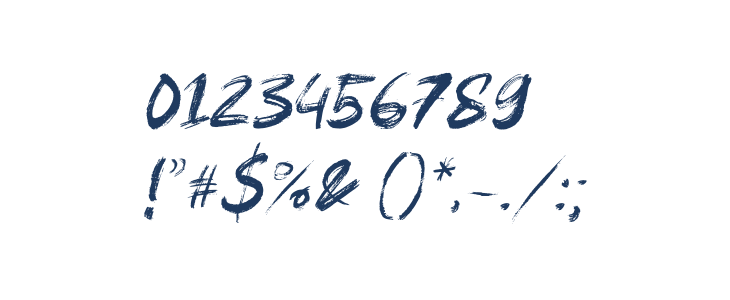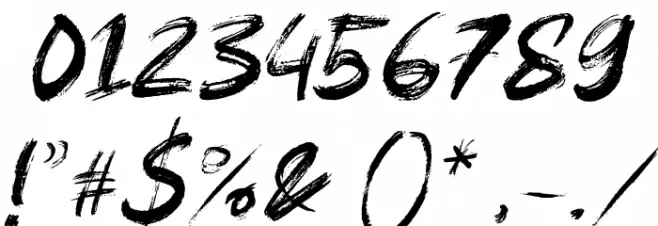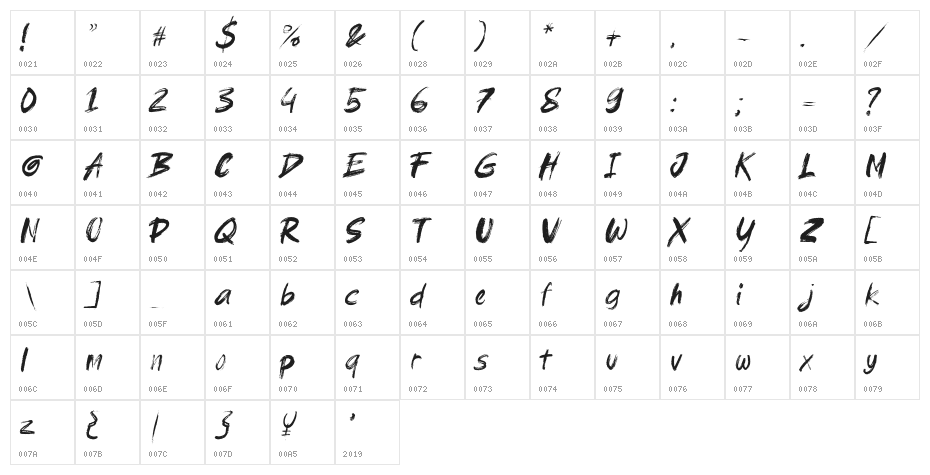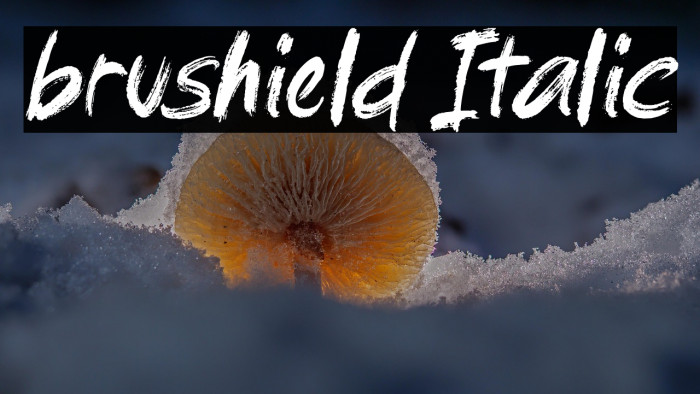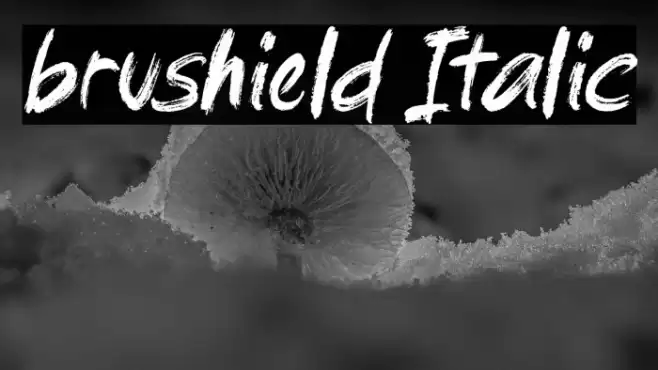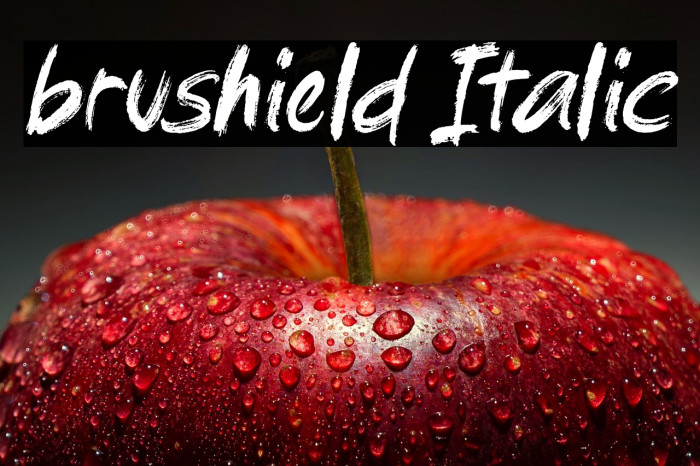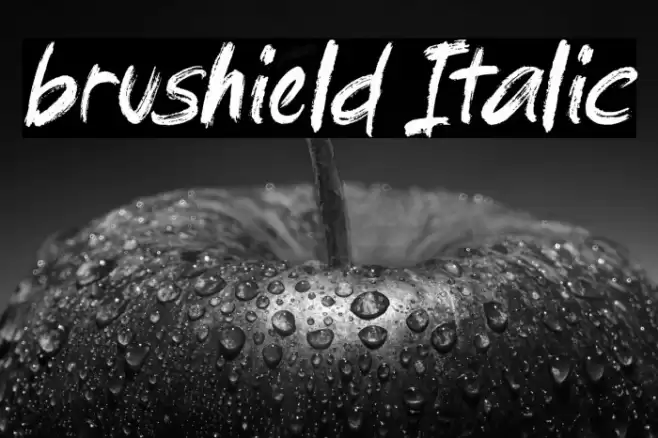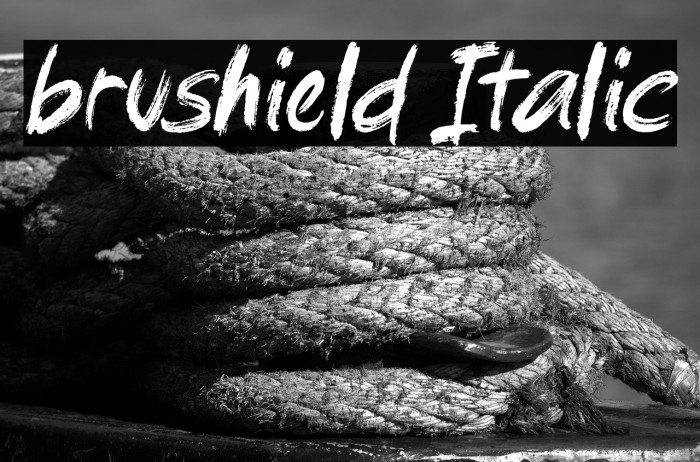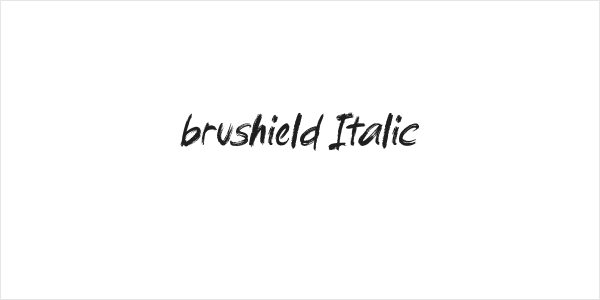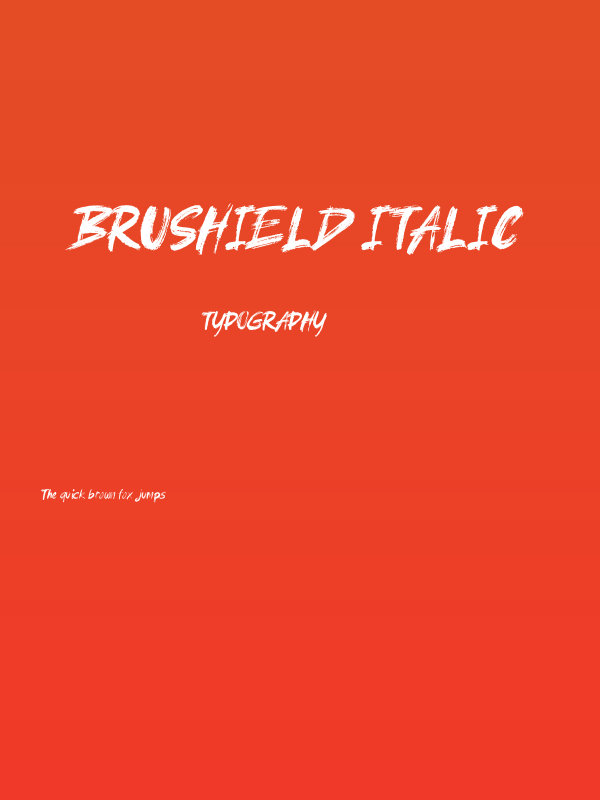
brushield Italic Font
brushield Italic Description
This font exhibits a bold and dynamic brushstroke style, characterized by its energetic and expressive letterforms. The strokes are uneven and textured, giving a hand-painted appearance that adds a sense of movement and vitality. The uppercase and lowercase letters maintain a consistent style, with a slightly slanted orientation that enhances the italicized effect. Numbers and special characters follow the same aesthetic, ensuring a cohesive look across all elements. The font's rough edges and varying stroke widths contribute to its artistic and informal feel, making it ideal for creative and impactful designs.
Proposed ProjectsIdeal for artistic projects, branding, posters, and any design requiring a dynamic and creative touch.